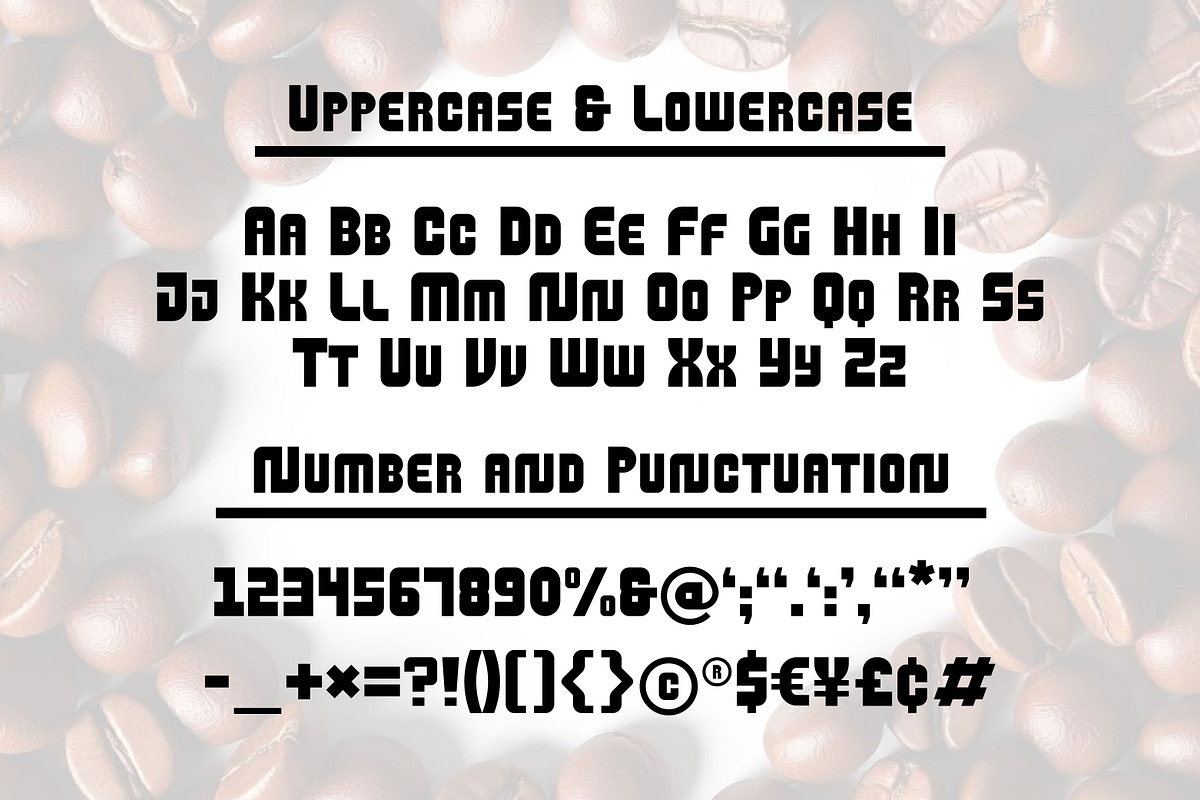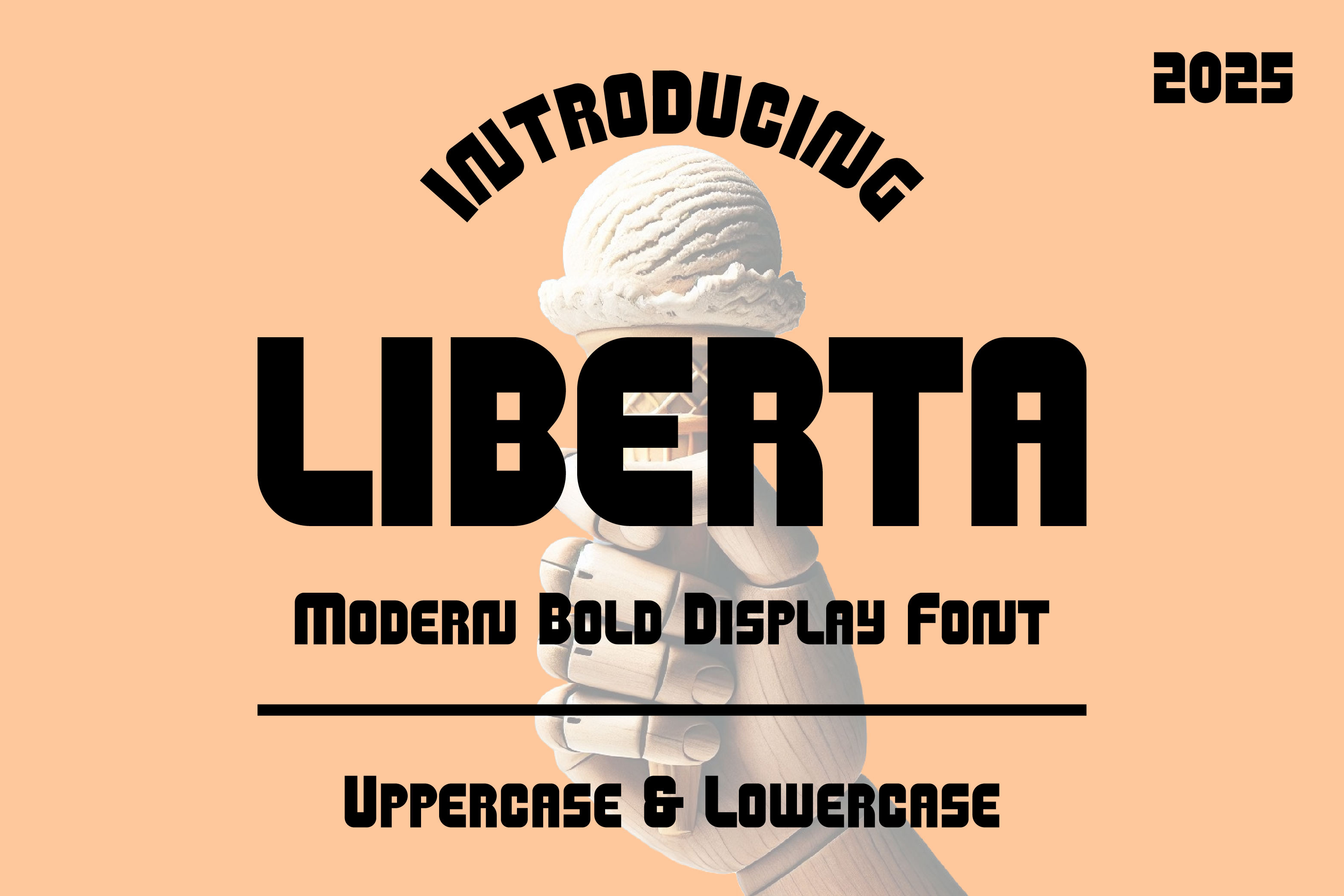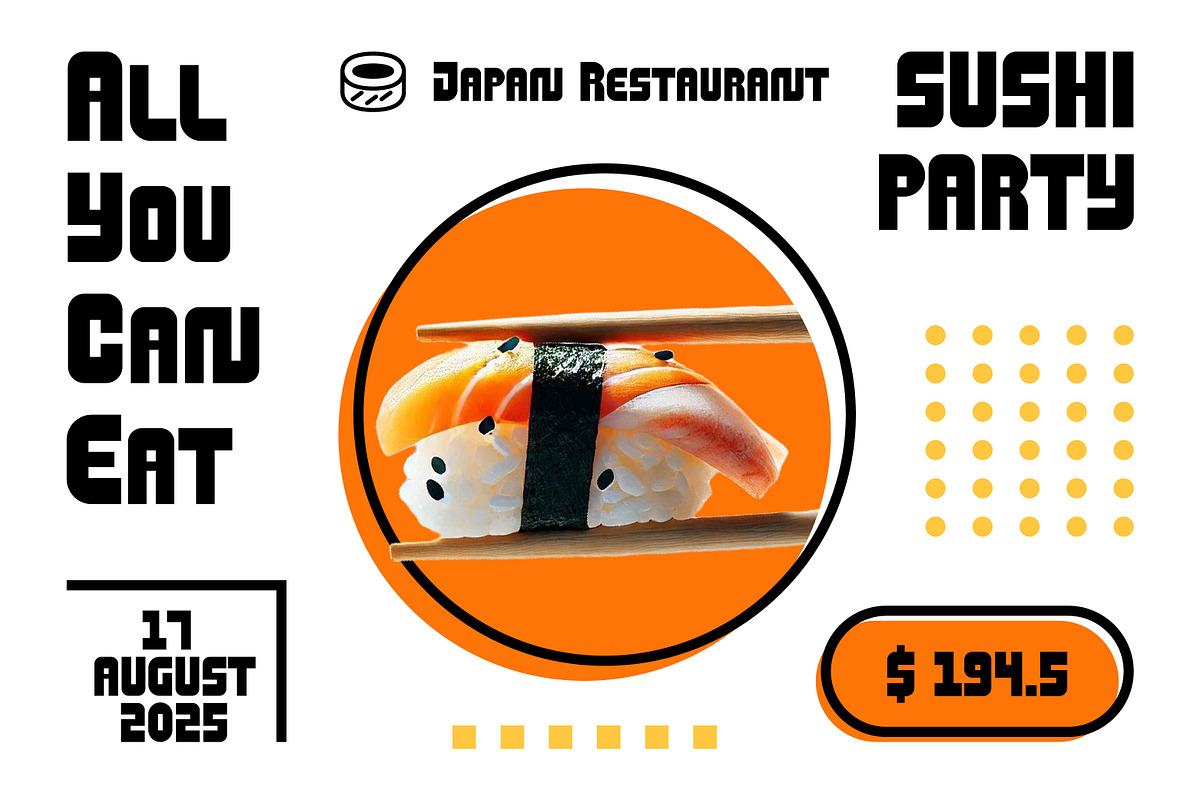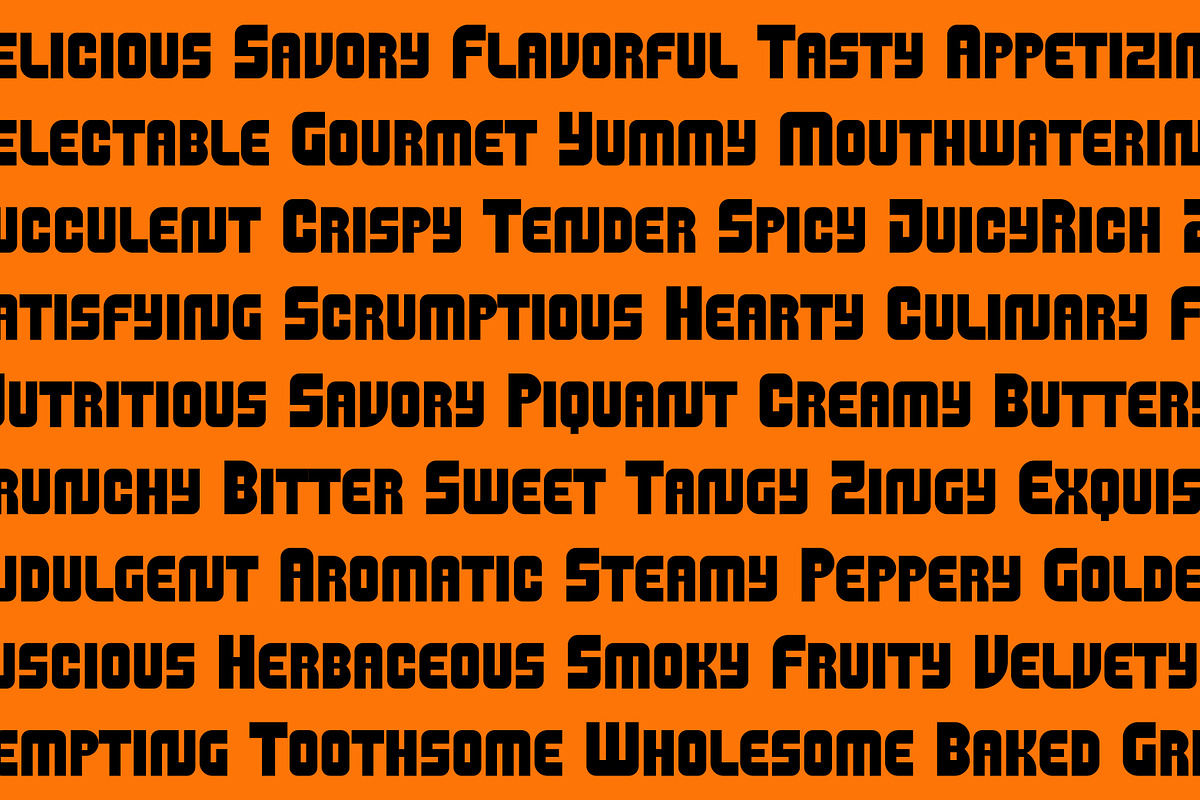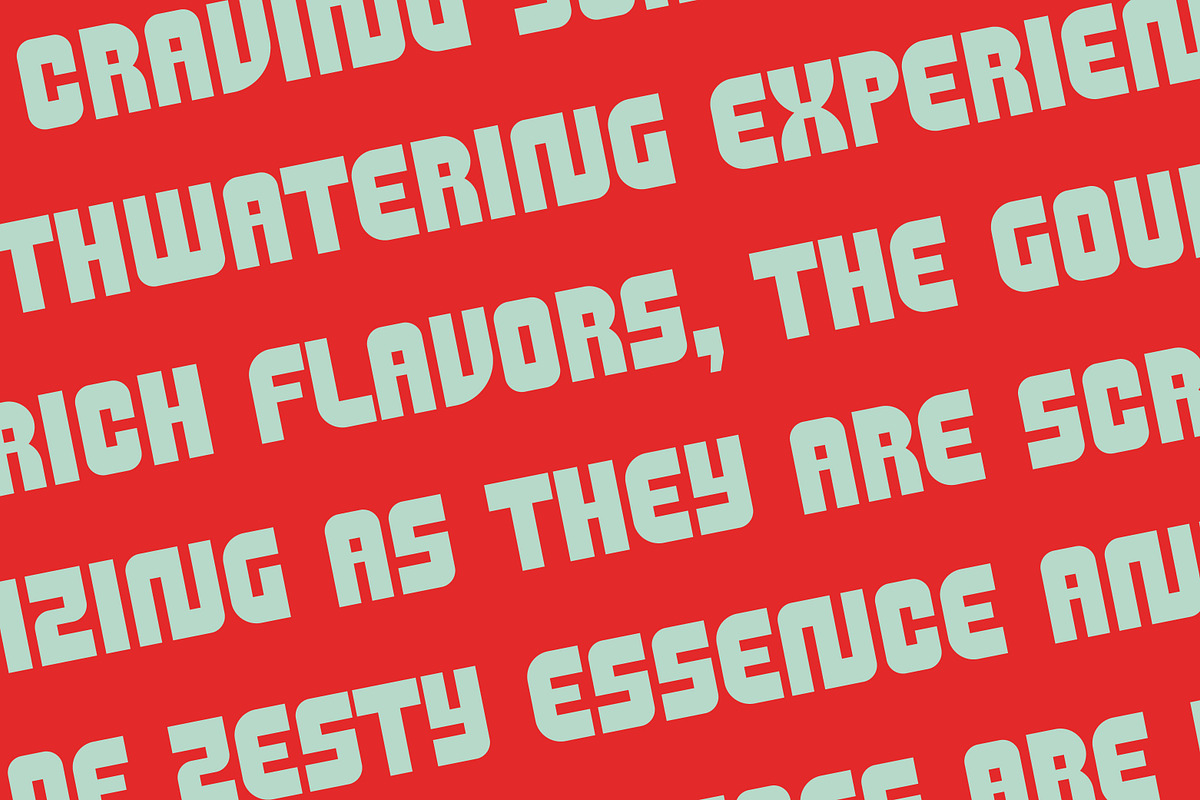
Liberta - Modern Bold Display Font
Liberta is a bold display font, capturing the exotic essence of various cuisines. With its strong yet approachable design, Liberta adds personality to your next creative project. Whether applied to packaging, signage, or digital platforms, this typeface delivers an eye-catching effect on any surface. Try Liberta and make your designs stand out!